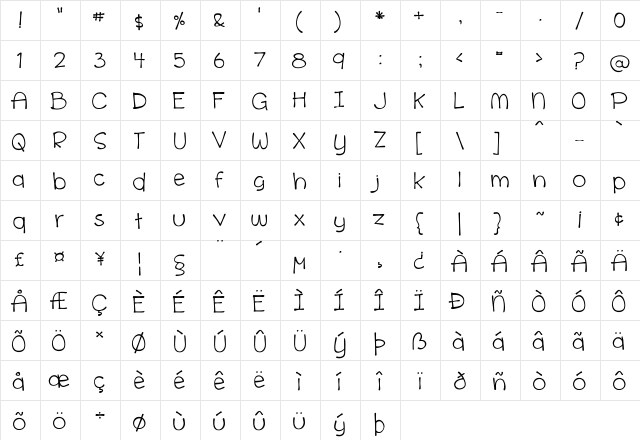
cinnamon cake Regular
| Foundry | Brittney Murphy |
| Designer | Brittney Murphy |
Design Context for cinnamon cake Typeface
cinnamon cake is a composed and adaptable typeface that performs quietly and consistently across a wide range of design contexts.